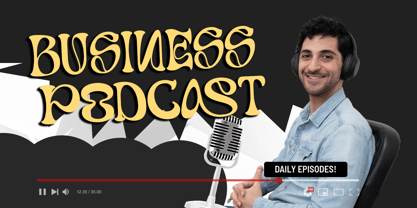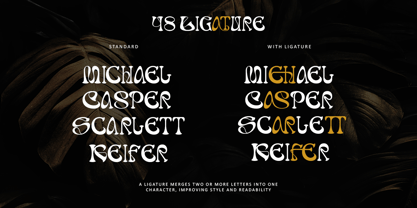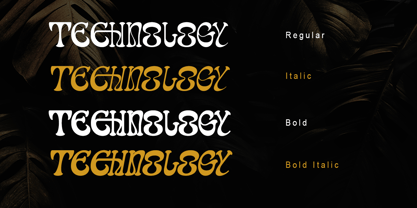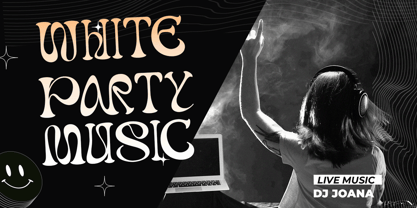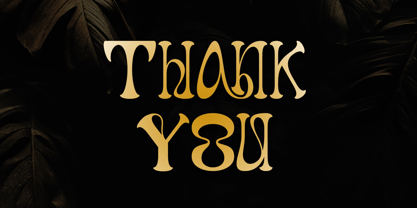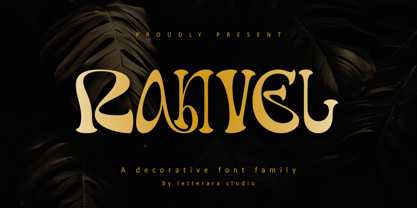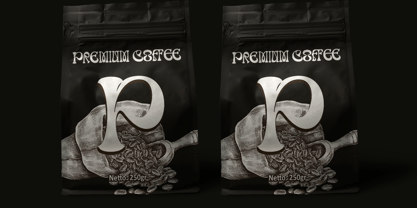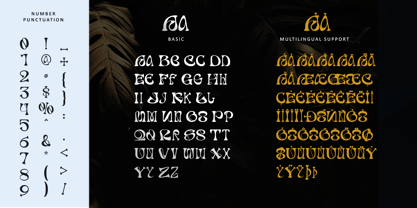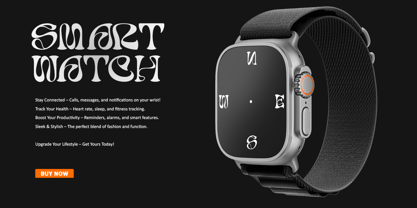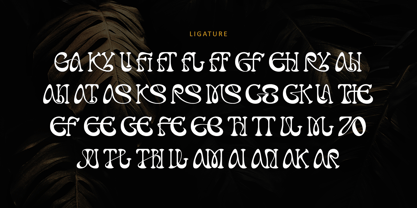
Ranvel
La familia tipográfica Ranvel fue diseñada por Thomas Aradea y publicada por Letterara. Ranvel contiene 4 estilos y opciones de paquete familiar. Más información sobre esta familia
Introducing Ranvel, a sophisticated serif font that blends timeless elegance with modern versatility. Available in Regular, Italic, Bold, and Bold Italic, Ranvel is designed for refined typography, making it perfect for editorial layouts, luxury branding, book covers, and high-end packaging. Its graceful letterforms and well-defined serifs exude confidence and charm, while PUA encoding ensures seamless access to unique glyphs for effortless customization. Whether crafting bold headlines or elegant invitations, Ranvel brings a touch of sophistication to every project.